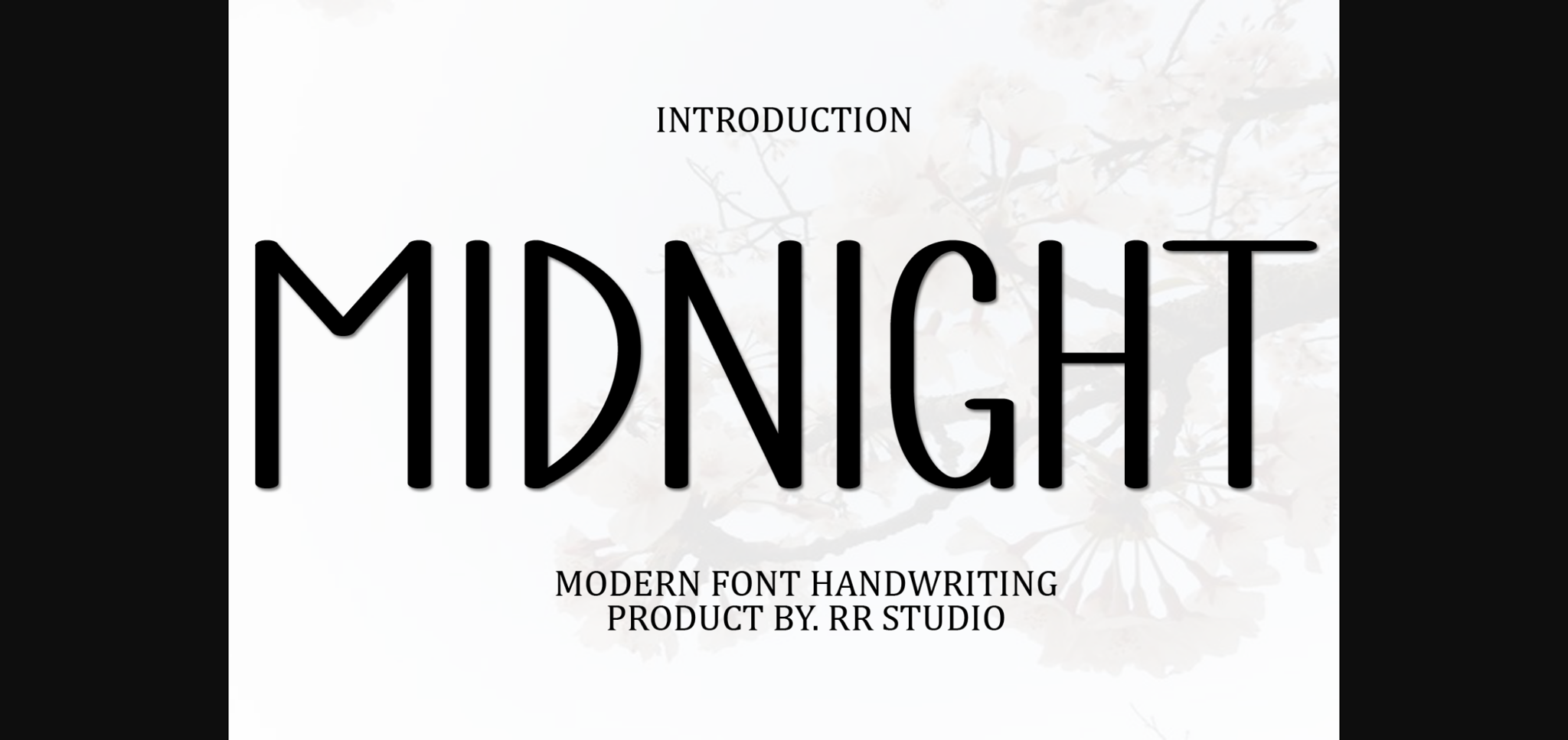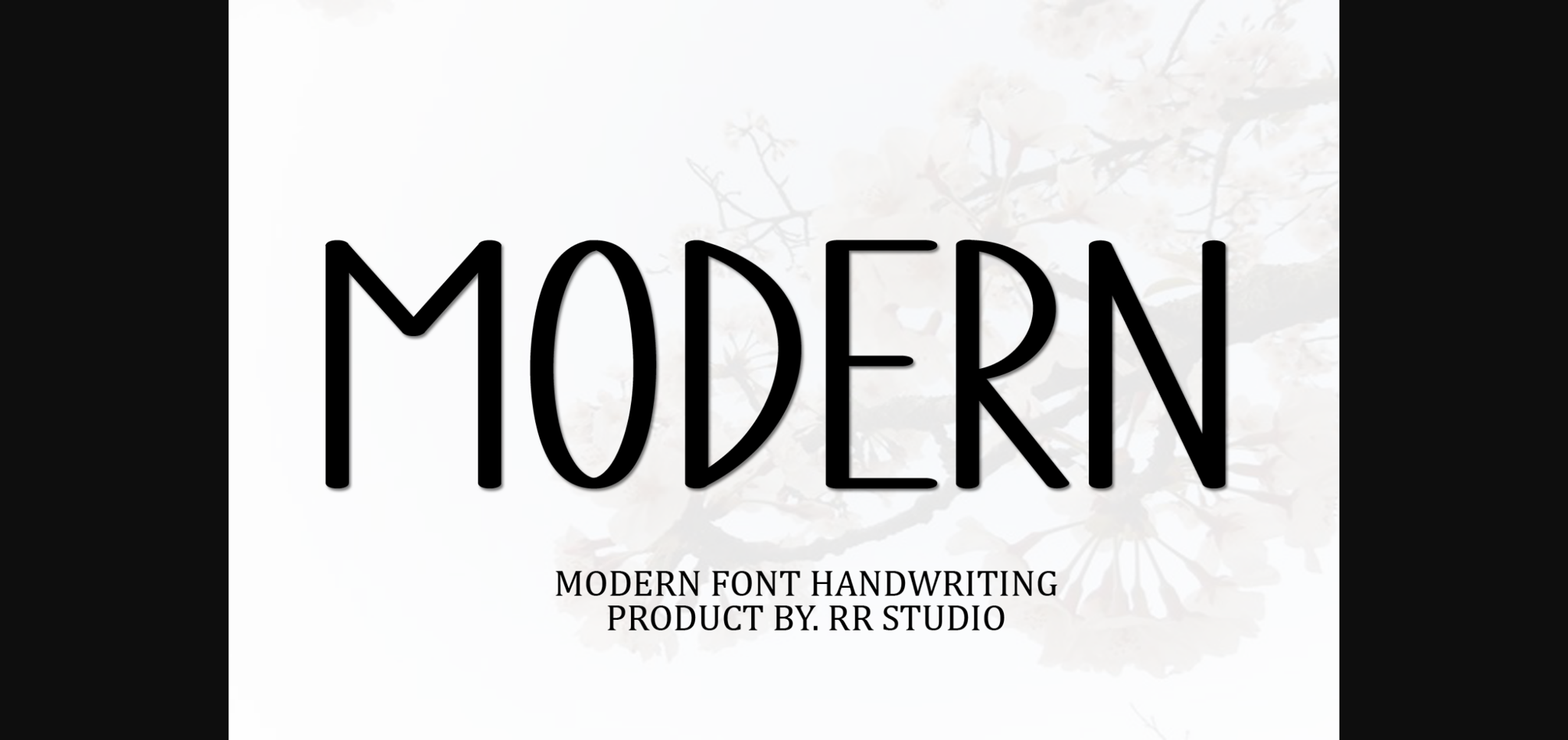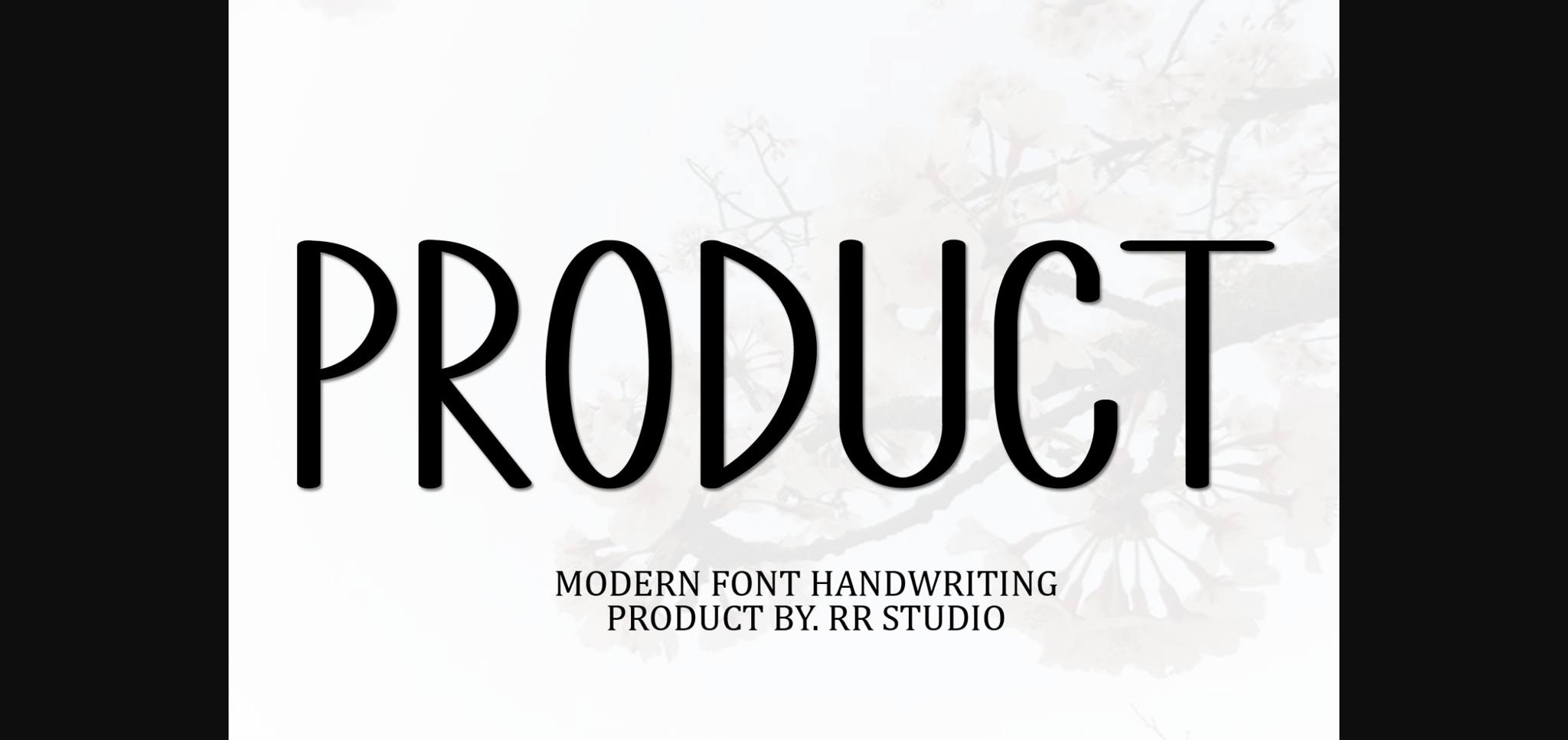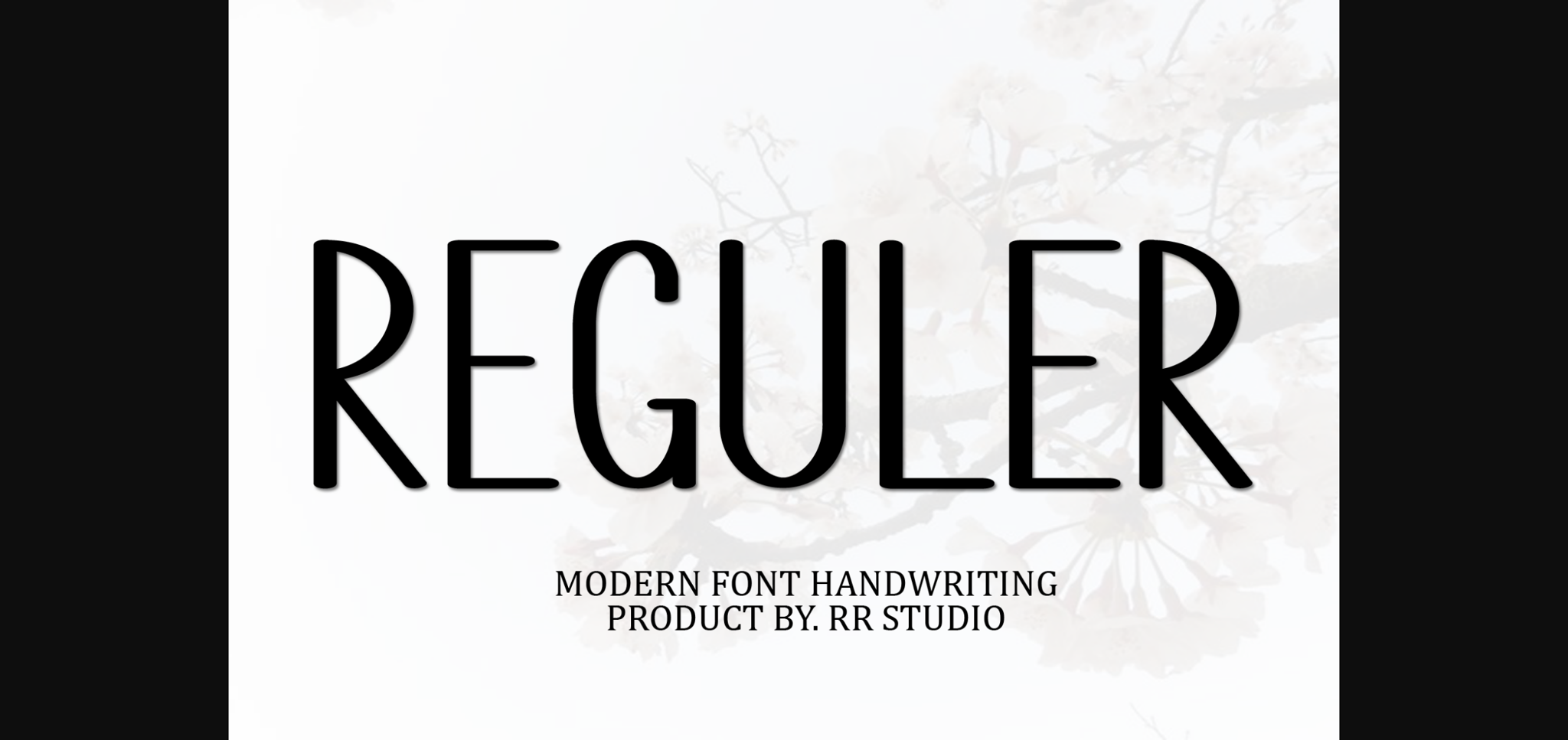
About Midnight Font
Midnight is a stylish and incredibly elegant sans serif font. It looks stunning on wedding invitations, thank you cards, quotes, greeting cards, logos, business cards and every other design which needs a handwritten touch.